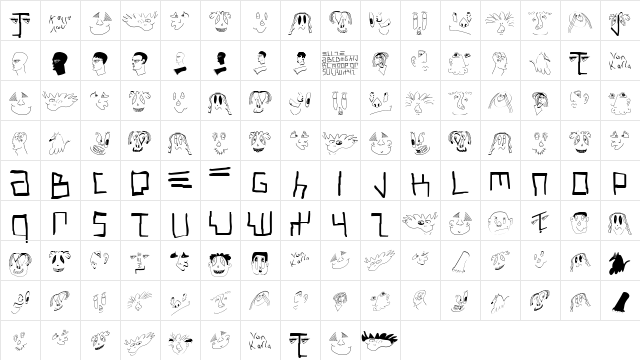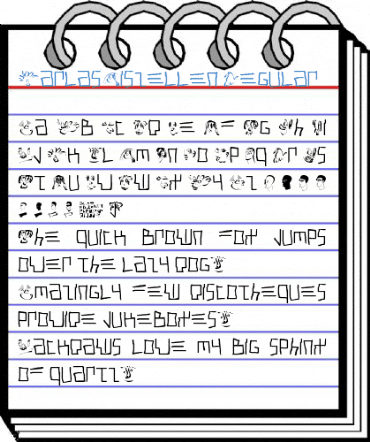
KarlasMiszellen Regular
Design Context for KarlasMiszellen
KarlasMiszellen is a composed and adaptable typeface that performs quietly and consistently across a wide range of design contexts.